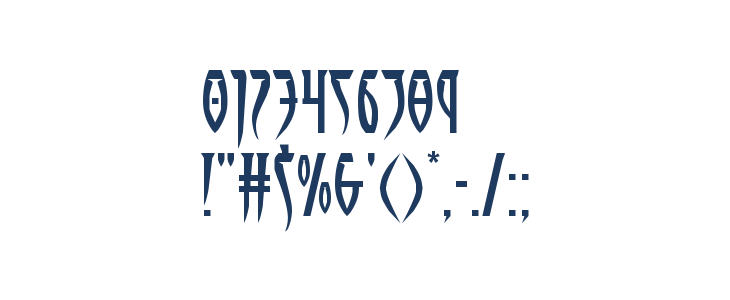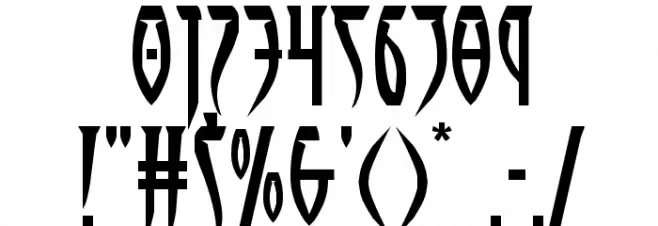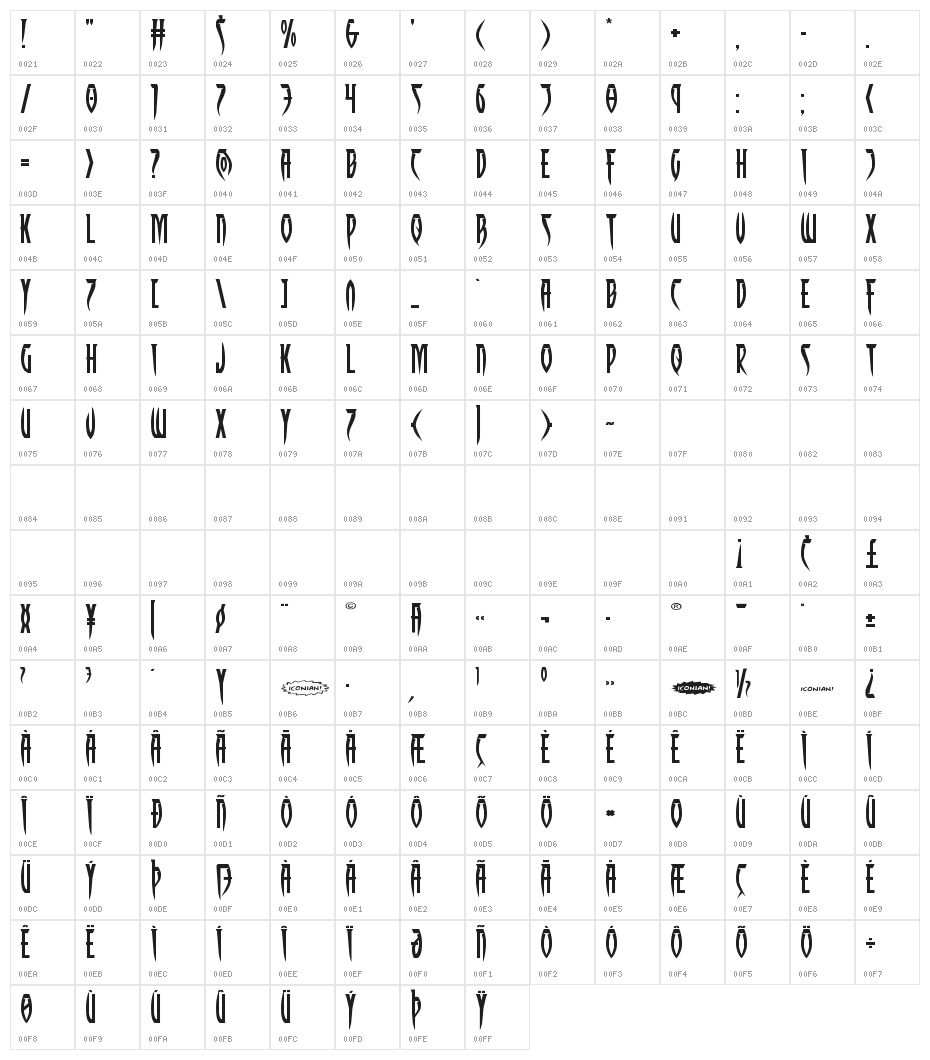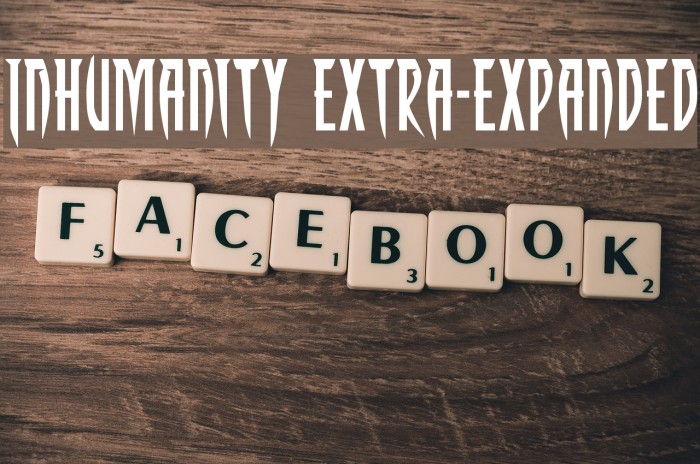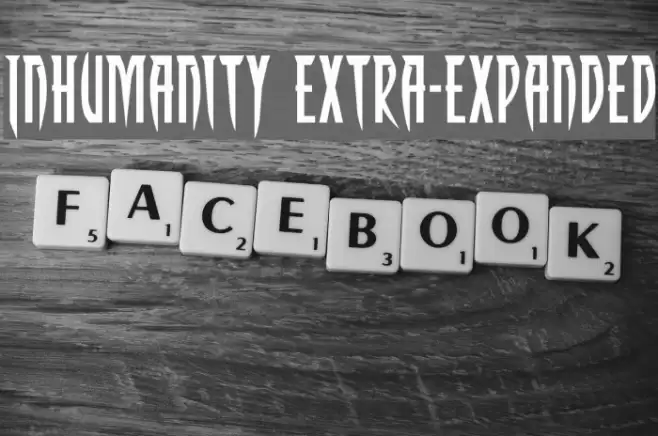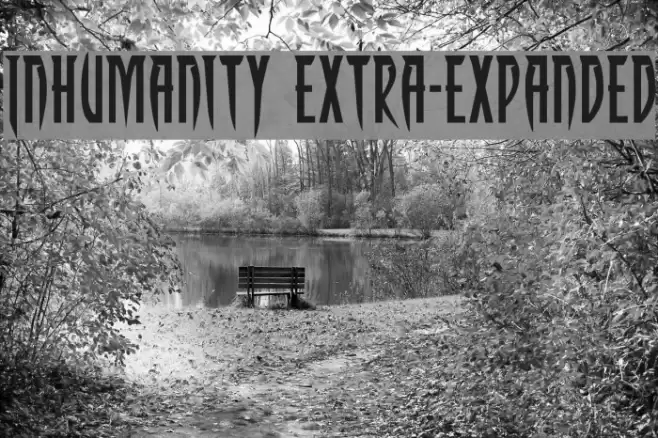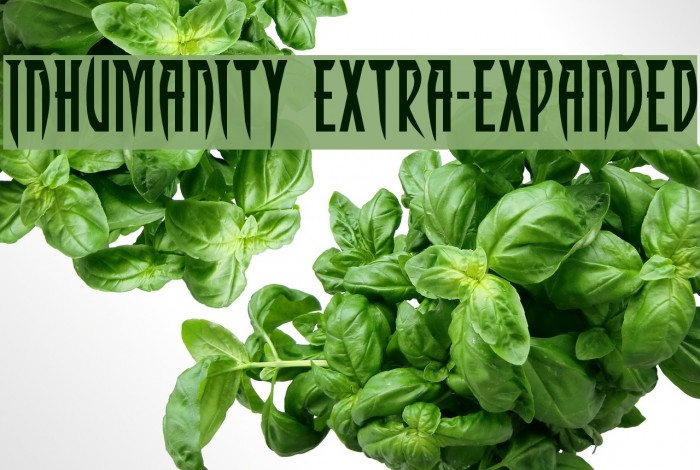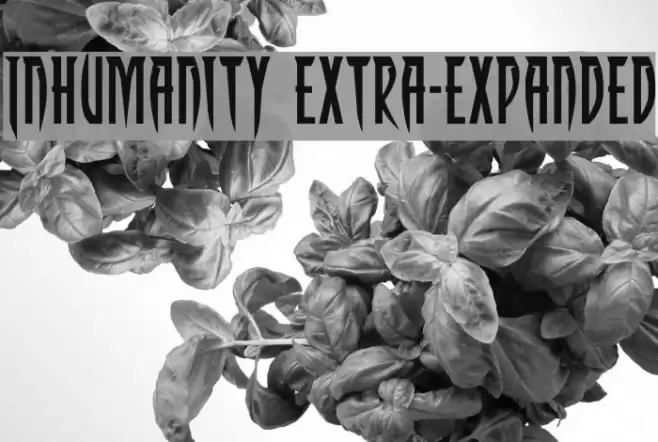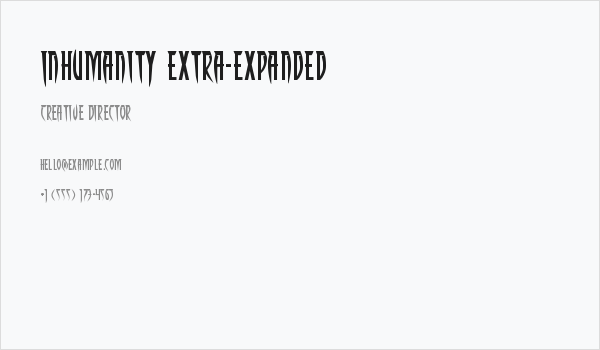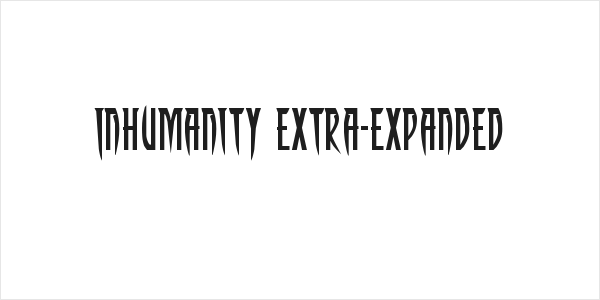
Inhumanity Extra-Expanded Font
Inhumanity Extra-Expanded Description
This font features a bold and striking design with elongated, sharp edges and a futuristic aesthetic. The characters are extra-expanded, giving them a wide stance that commands attention. The angular forms and high contrast between thick and thin strokes create a dynamic and aggressive appearance. The uppercase letters are particularly prominent, with a unique style that blends modern and gothic influences. The numerals and special characters maintain the same bold and expansive design, ensuring consistency across all text elements.
| Overall Style | Futuristic, Gothic |
| Proposed Projects | Ideal for sci-fi themed posters, video game titles, edgy branding, or any project requiring a futuristic and bold statement. |